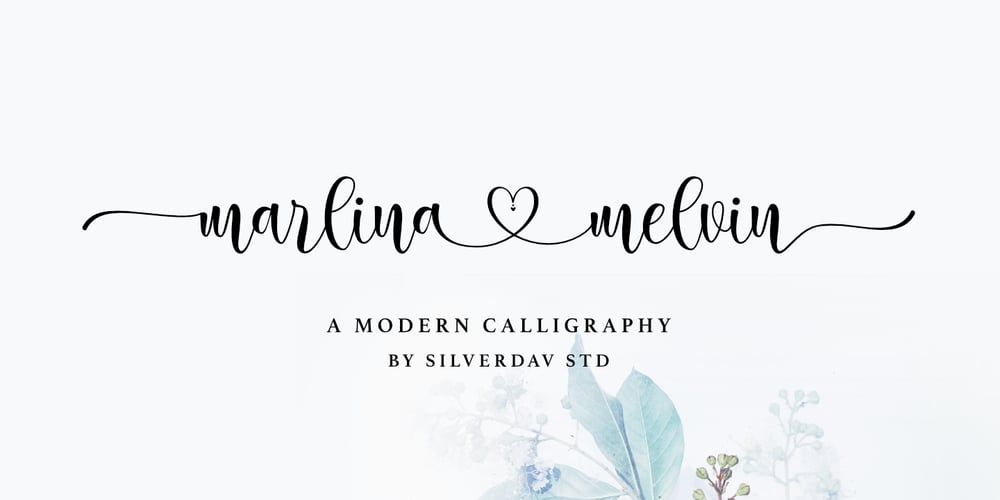
Marlina Melvin Font Family was designed by David Kasidi and published by Silverdav. Marlina Melvin contains 1 styles and family package options. Marlina Melvin is a modern calligraphy font with handwritten, sophisticated flows. It is full of hearts and glyphs. It is perfect for branding, wedding invites, and cards.Marlina Melvin includes a full set of lovely uppercase and lowercase letters, multilingual symbols, numerals, punctuation and ligatures. Also it includes: -short lowercase beginning and ending swashes -lowercase ending heart swashes, which serve to connect two words or letters (This is so perfect for invitations, monograms) -long lowercase beginning and ending heart swashes.The font has a smooth texture, so it would be perfect for all types of printing techniques you can do embroidery, laser-cut, gold foil, and is ideal for cutting.Marlin Melvin supports 162 languages.